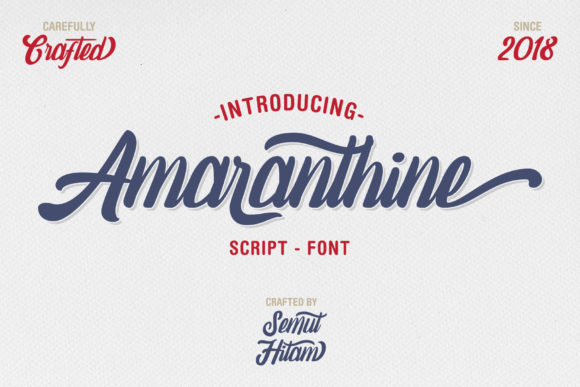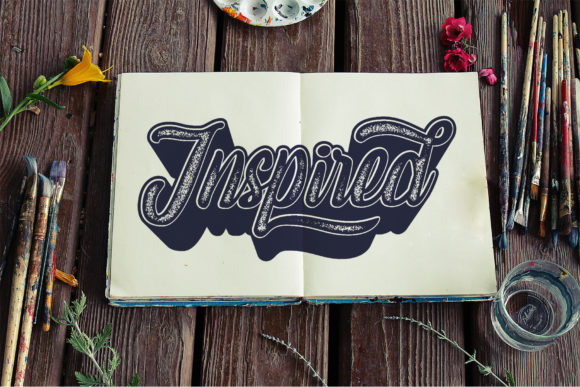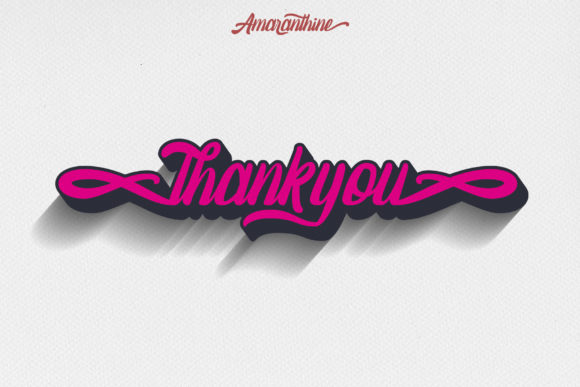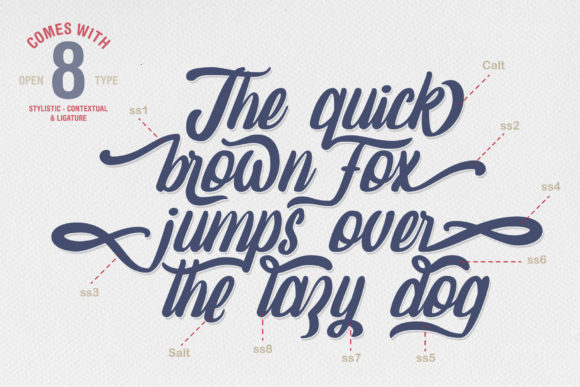
About Amaranthine Script Font
The Amaranthine is a smooth script font. It has a vintage, yet striking style which will make any design stand out.
It’s perfect for logos, branding, posters, flyers, greeting cards, invitations, book covers, quotes, and much more.